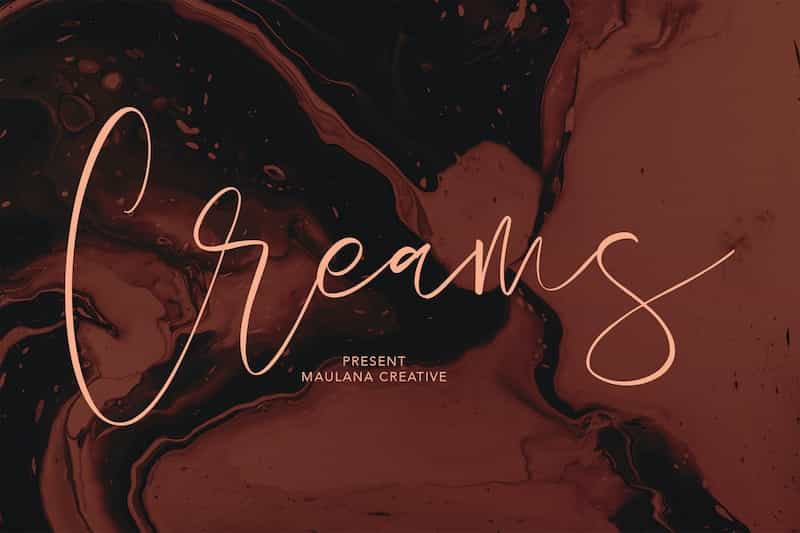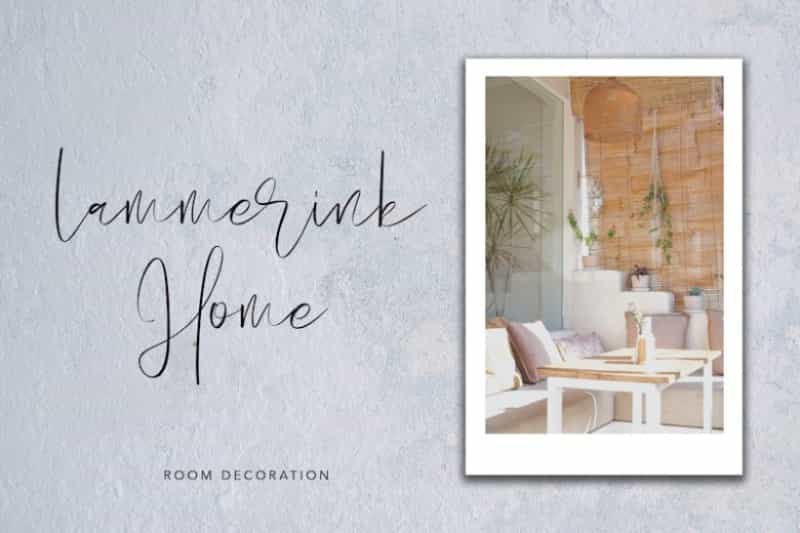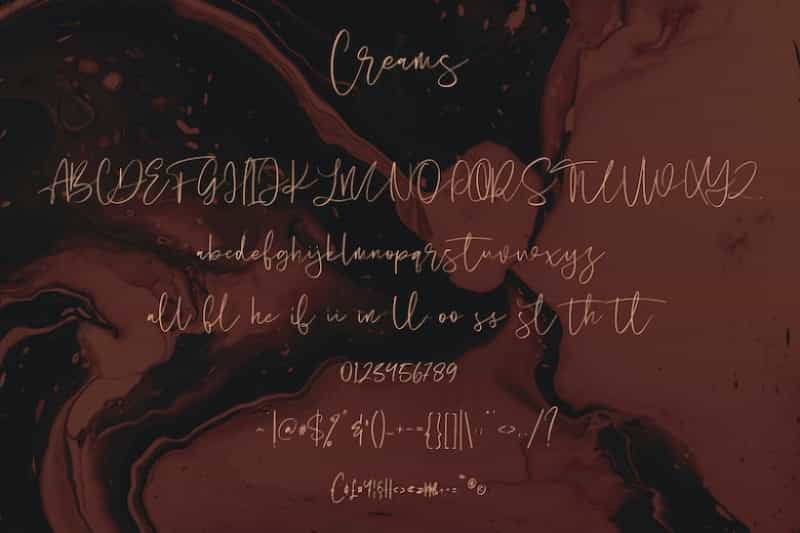
Creams was designed to imitate the hand scratch marks; therefore, when using it in logos, wedding invitations, branding, ads, social media content, and product concepts, it looks genuine.